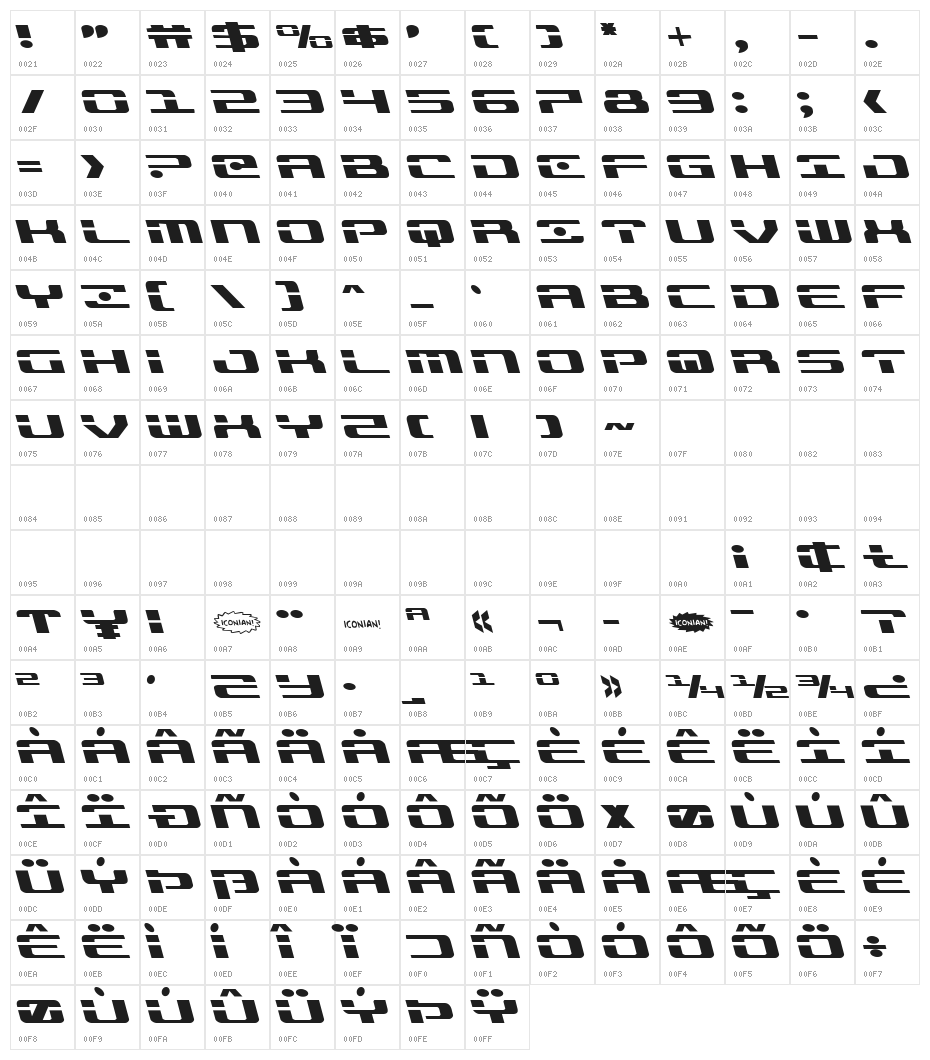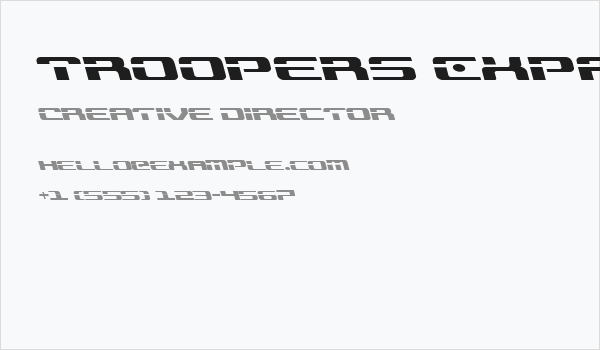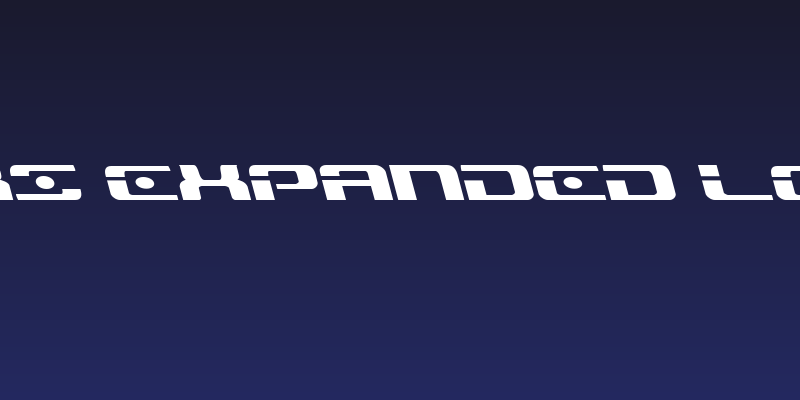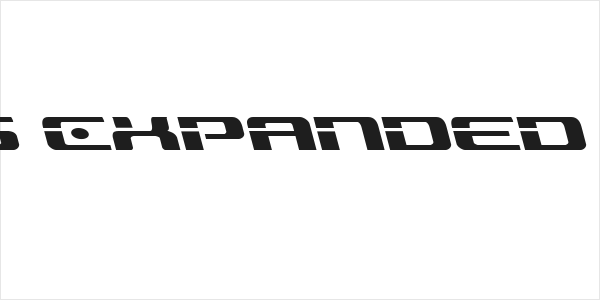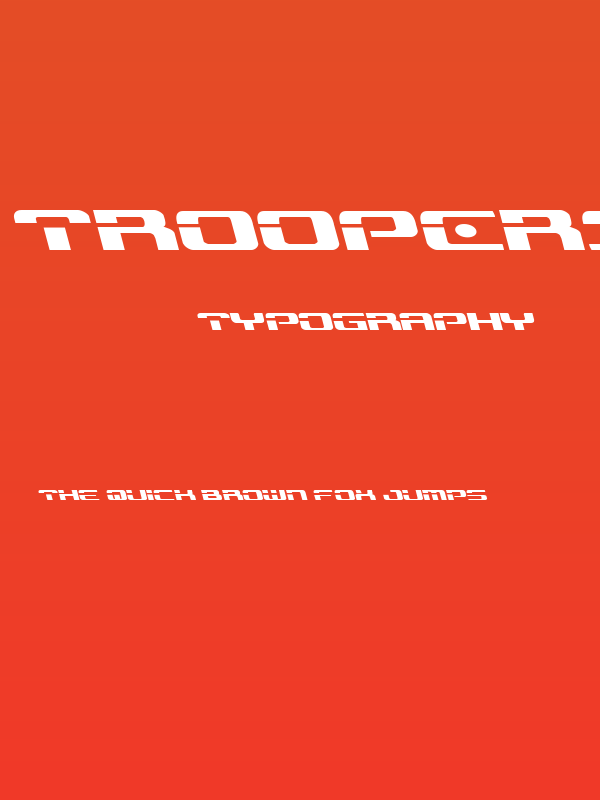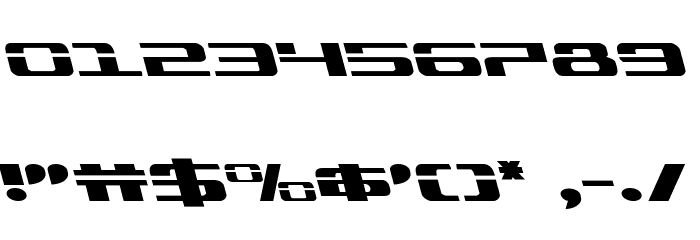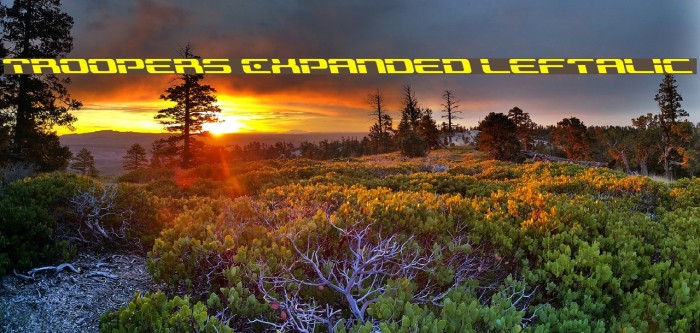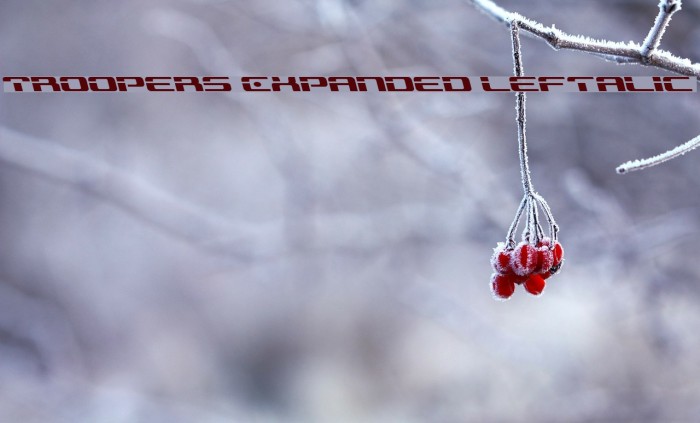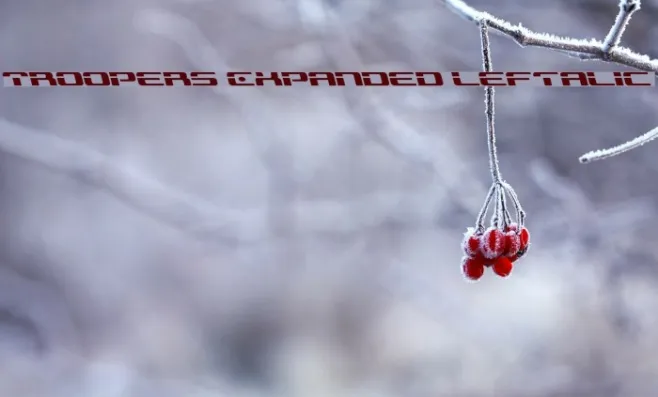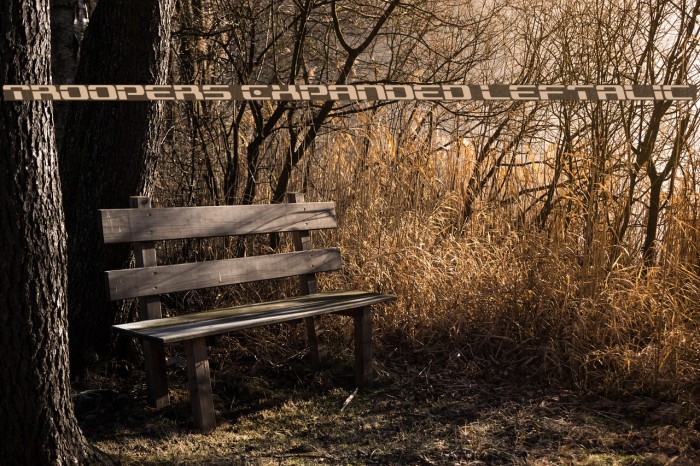
Troopers Expanded Leftalic Font
Troopers Expanded Leftalic Description
This font exhibits a futuristic and bold design, characterized by its expanded and italicized form. The letters are constructed with a geometric and angular style, featuring sharp edges and a consistent stroke width. The design incorporates a stencil-like appearance, with breaks in the strokes that add a dynamic and industrial feel. The uppercase and lowercase letters maintain a uniform height, enhancing the font's cohesive look. The numbers and special characters follow the same stylistic approach, ensuring visual harmony across all elements. This font's unique style makes it stand out, suitable for projects that require a modern and edgy aesthetic.
| Proposed Projects | Ideal for sci-fi themed projects, video game titles, tech branding, and futuristic posters. |